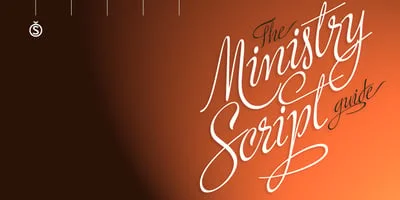
Ministry Script
Ministry Script Font
Ministry Script Font is perfect for governmental department communications, public service announcements, civic organization branding, municipal office signage, official document presentations, administrative service marketing, public policy publication designs, and distinguished civil service materials.
Ministry Script Font is exciting because it embodies the dignified authority of public administration with its formally elegant letterforms that convey both governmental gravitas and citizen accessibility, capturing the essential balance between official authority and democratic service. The typeface represents the noble tradition of civil service and the commitment to transparent governance, creating an immediate sense of institutional reliability and public trust that resonates with citizens who expect both competence and accountability from their government institutions.
Ministry Script Font family includes Light, Regular, Medium, Bold, and Official variants, complemented by governmental ornamental elements and civic decorative features, offering designers authoritative typography tools for creating communications that honor public service while maintaining the transparency and accessibility that democratic governance requires.
Whether you're developing a government agency's brand identity, designing public information materials, or creating official civic communications, Ministry Script Font provides unmatched governmental authenticity and public service appeal. This distinguished typeface perfectly balances official authority with citizen accessibility, ensuring your communications resonate with diverse public audiences who deserve clear, respectful, and professionally presented government information. The font's formal character variations and administrative rhythm make it particularly effective for agencies that emphasize public service, governmental transparency, and the kind of professional excellence that builds citizen confidence in democratic institutions. Public administration professionals consistently select Ministry Script Font when projects require typography that communicates competence, transparency, and the kind of dedicated public service that transforms bureaucratic processes into citizen-centered experiences, making it indispensable for government agency branding, public information campaigns, and any application where official typography can reflect the values of democratic governance, public accountability, and the unwavering commitment to serving citizens with dignity, respect, and the professional excellence that upholds the public trust and ensures that government remains responsive to the needs of the people it serves.